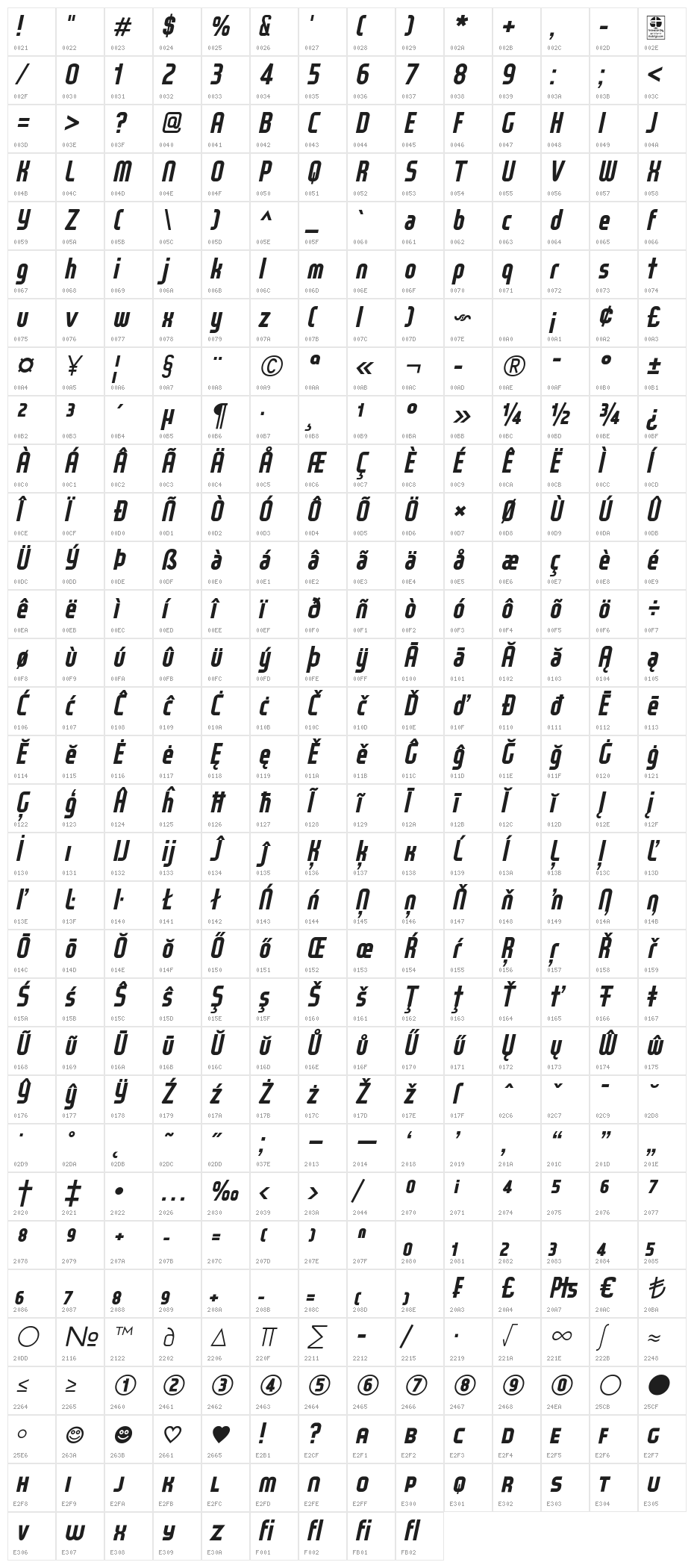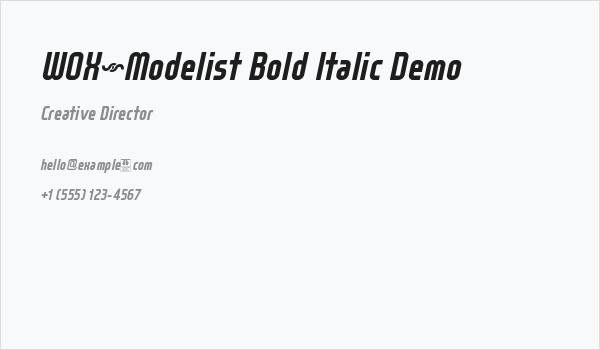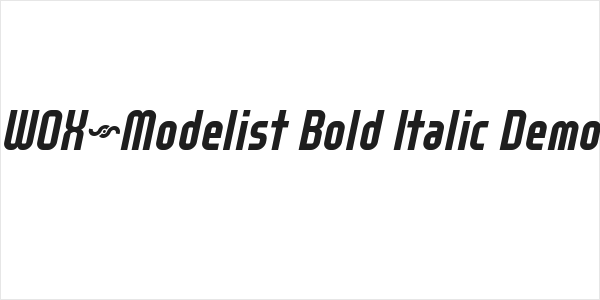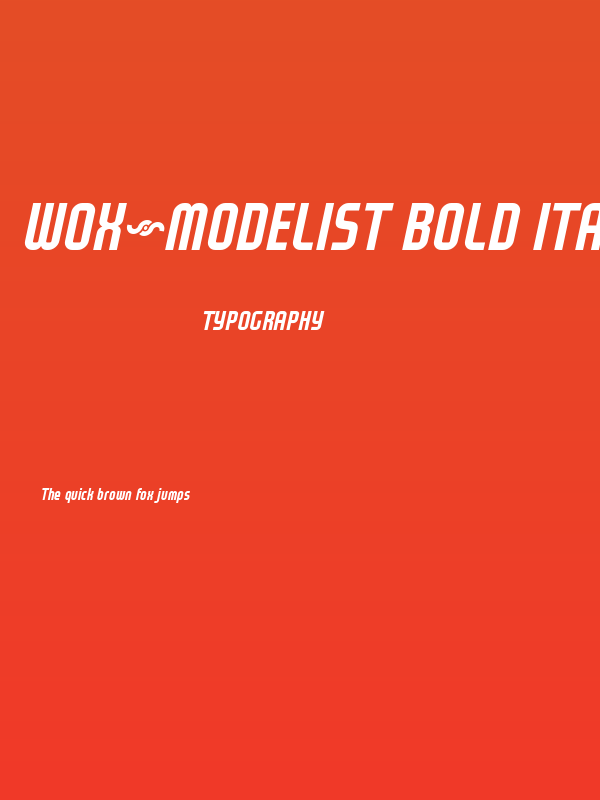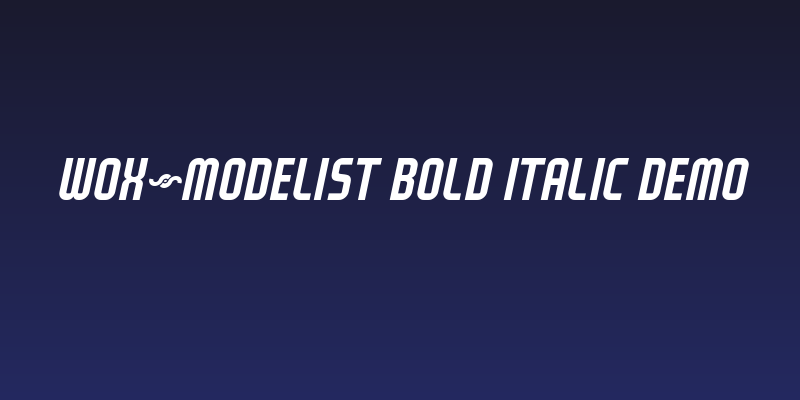
WOX~Modelist Bold Italic Demo Font
WOX~Modelist Bold Italic Demo Description
This font features a bold and italic style with a modern and dynamic appearance. The characters are slightly slanted, adding a sense of movement and energy. The strokes are thick and consistent, providing a strong visual impact. The uppercase letters are tall and commanding, while the lowercase letters maintain a cohesive flow. Numbers and special characters are designed to match the overall style, ensuring uniformity across all elements. The font's design is clean and legible, making it suitable for various applications where a bold statement is desired.
Proposed ProjectsIdeal for sports branding, dynamic posters, modern advertising, and impactful headlines.